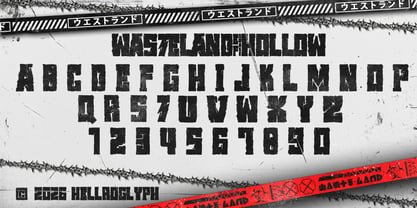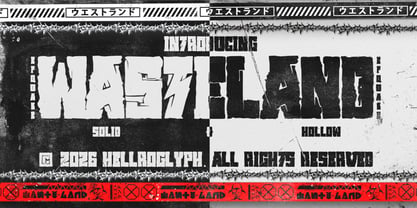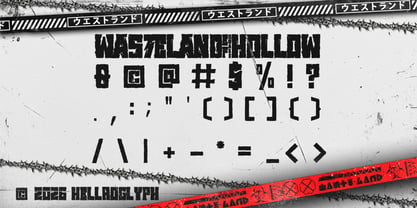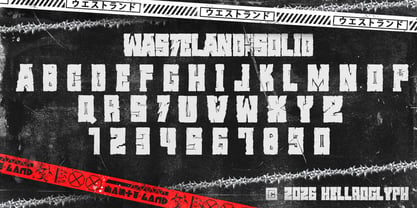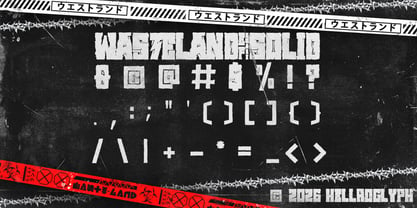
Wasteland EFQuake
by Hellroglyphs
The Wasteland EFQuake Font Family was designed by Muhammad Aliff and published by Hellroglyphs. Wasteland EFQuake contains 2 styles and family package options. More about this family
Unleash your creative power with WASTELAND EFQuake, a brutal dystopian display font inspired by chaos, decay, and underground culture. This font is perfect for dark underground OCs, posters, streetwear, and motion graphics, delivering bold visuals and a heavy impact for raw expression. **FEATURES** - Uppercase A–Z - Numbers (0–9) - Symbols **PERFECT FOR** - Posters - Album Covers - Streetwear Design - Gaming Graphics - Branding & Headlines WASTELAND is designed to make a statement, making it ideal for projects that require a strong visual presence and a touch of rebellion.
Designers: Muhammad Aliff
Current Foundry: Hellroglyphs